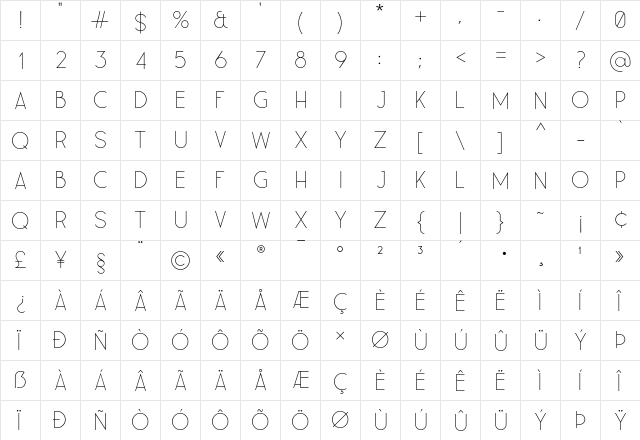
Leaner Thin
| Foundry | kulturrrno |
| Designer | Ilyas Yunusov |
Design Context for Leaner Typeface
Leaner is a composed and adaptable typeface that performs quietly and consistently across a wide range of design contexts. The delicate stroke weight brings airiness and refinement to layouts.